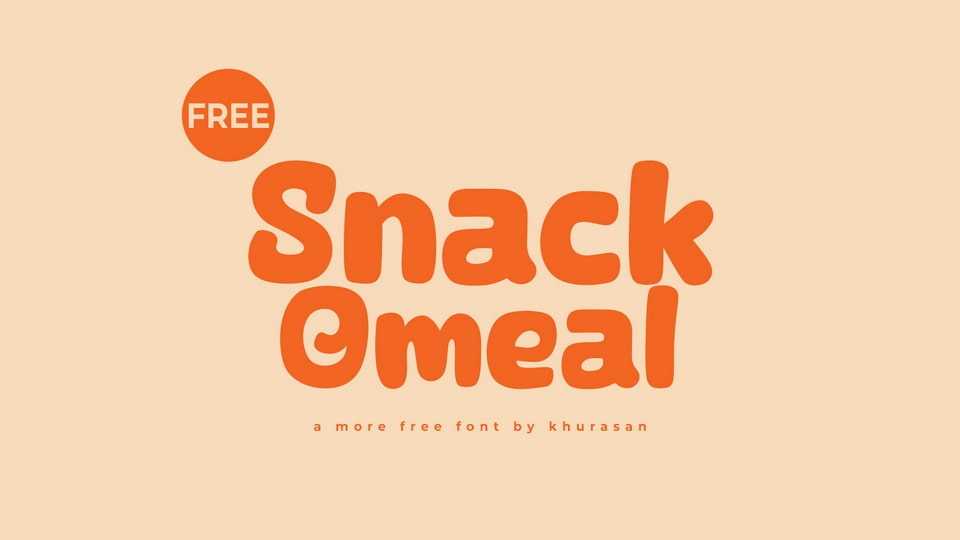
Download Snack Omeal font, a friendly and cute hand-drawn typeface that radiates warmth and charm. The font features softly rounded letterforms and gentle, flowing lines.